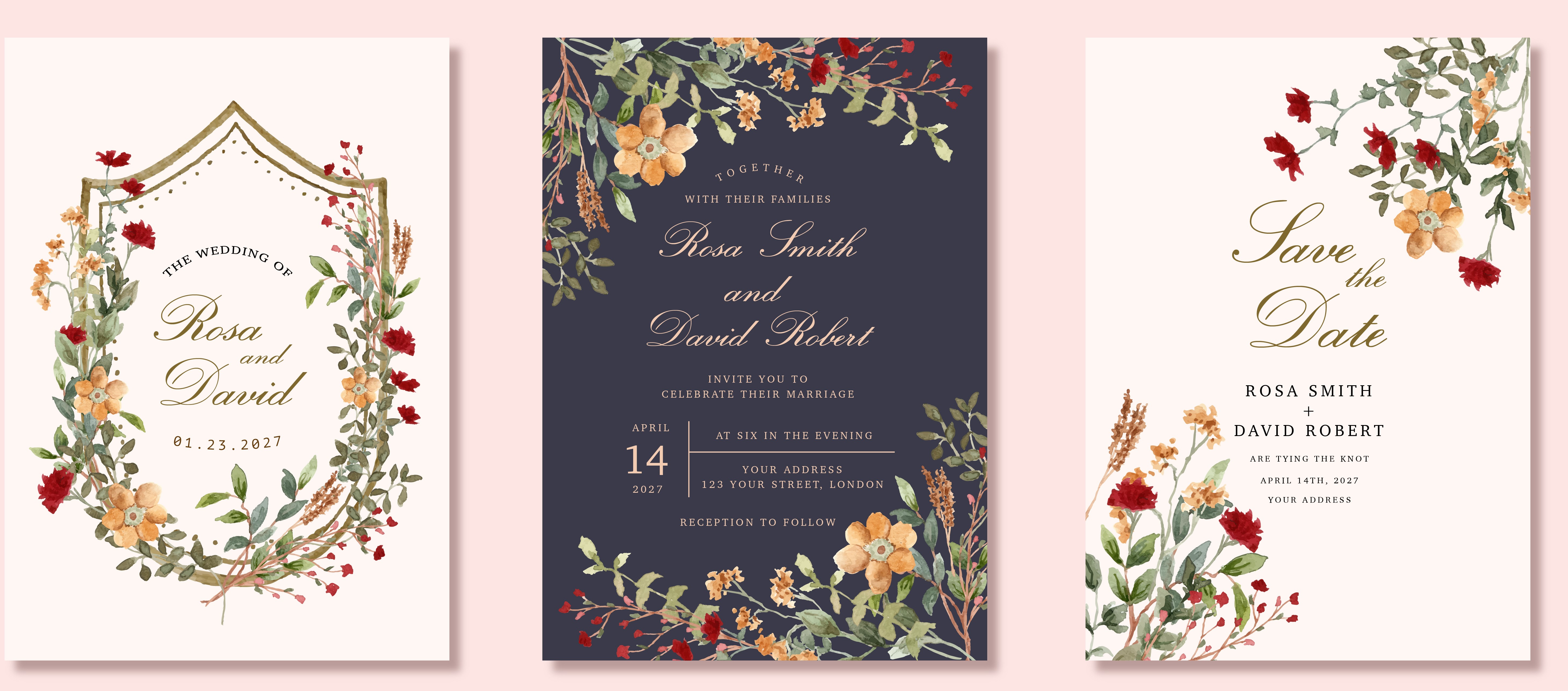
When you receive a wedding invitation from your loved one, one of the first things you notice is its font. Yes, the font of an invitation is a bigger deal than you think, as it can make or break its aesthetics.
Choosing a font requires some planning. After all, they do more than spell out your names and wedding details. They create a feeling. For wedding invitations online, Canva offers hundreds of beautiful choices. All you need to do is make sure the font matches your style, your story, and your celebration.
Let's break down the best Canva fonts that can instantly elevate your wedding invitations.
Why Font Choice Matters
Fonts shape the first impression. A flowing script suggests romance and tradition. A clean sans-serif speaks of modernity and minimalism. A serif font can bring in timeless sophistication. Mixing fonts, like combining a script for names with a serif or sans-serif for details, often creates the best balance of beauty and readability.
Using the right font for the right part of the invitation helps: make names shine, ensure readability for the details (date, venue, directions), and reflect the mood of your wedding.
The Best Fonts for Your Wedding Invitation
Here are some of the best fonts you should consider:
1. Romantic Calligraphy Fonts
For couples who love soft, flowing designs, calligraphy fonts add emotion and artistry. These are perfect for highlighting names, save-the-date titles, and key phrases.
These are some popular Canva calligraphy fonts:
• La Bohemia: Elegant and enchanting, ideal for displaying the couple's names.
• Argentina Script: Smooth, classic script that feels romantic and inviting.
• Best One Love: Playful and expressive, great for whimsical wedding themes.
Pro Tip:
Use calligraphy fonts sparingly, mainly for large keywords. Too much script text becomes difficult to read, especially on mobile screens.
2. Modern and Minimalist Fonts
If your style is sleek, contemporary, or chic, modern fonts create a clean and fresh look. These are great for minimalist weddings, beach weddings, or anything with a modern twist.
Popular choices include:
• Minerva Modern: A simple yet premium-looking sans serif that pairs beautifully with handwritten scripts.
• Mr Eaves: Smooth and highly legible, perfect for details like venue, date, and RSVP info.
• Silver South: A modern handwritten script with bold strokes that make your design stand out.
Why they work:
Modern fonts keep your invitation stylish and uncluttered. When combined with a flowing script, they create a perfect mix of elegance and simplicity.
3. Fonts for Wedding Monograms
Monograms add a personal touch to wedding stationery, giving your invitation a signature look.
The best options are:
• August Roma Serif: Luxurious and decorative, perfect for initials or logos.
• Brilon: Art-deco inspired and elegant, ideal for standout letters and headings.
These fonts are designed to shine, so use them for single letters, initials, or a bold statement word, not entire paragraphs.
Final Tips When Designing Invitations in Canva
Keep these tips in mind when designing invitations:
• Don't overload on fonts. Pick 2–3 at most: one script for emphasis, one serif/sans for details, maybe a third for sub-headings if needed.
• Prioritize readability. Fancy scripts are lovely, but can get messy when printed small. Always make sure the date, time, and venue are crystal clear.
• Match font style to mood. Think about the wedding vibe: modern, vintage, rustic, formal and pick fonts to reflect that mood.
• Keep spacing and alignment in mind. Sometimes a gorgeous font looks messy if the layout is cramped or uneven. Use generous spacing and center or align thoughtfully.
Final Thoughts
Your wedding invitation is one of the first glimpses guests get into your celebration, so choosing the right font makes all the difference. Canva offers a wide range of beautiful font options, which allow you to express your personality with ease.
So, if you're designing a wedding invitation online, a well-chosen font pairing will transform the look instantly and make your design truly unforgettable.